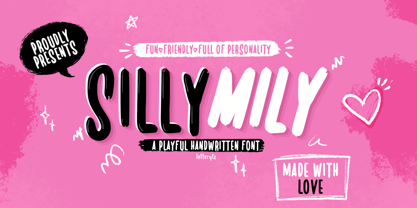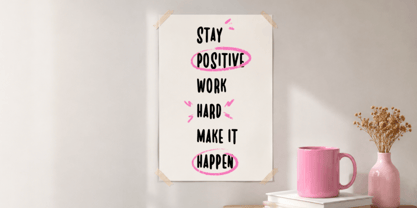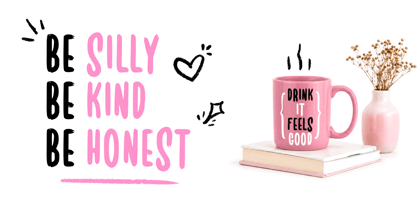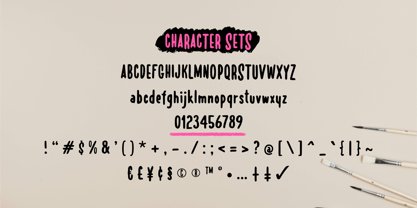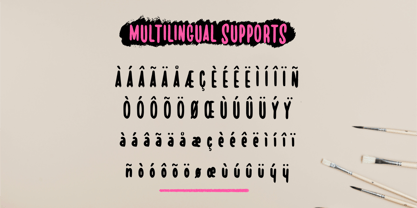
Sillymily
The Sillymily Font Family was designed by Wahyu Eka Prasetya, Dian Angga Marytama and published by Letterytz CalliType. Sillymily contains 2 styles and family package options. More about this family
Sillymily – Playful Handwritten Font
Sillymily is a fun and expressive handwritten font designed to bring joy, energy, and personality into your creative projects. Featuring bold organic strokes and a naturally playful rhythm, this font delivers a casual handmade feel that looks both friendly and eye-catching.
Carefully crafted with imperfect brush-like details, Sillymily captures the charm of authentic hand lettering while maintaining excellent readability. Its cheerful character makes it perfect for children-themed designs, playful branding, packaging, posters, quotes, social media graphics, greeting cards, and creative merchandise.
The slightly uneven shapes and quirky letterforms create a warm and approachable appearance, making your typography feel more personal and lively. While Sillymily has a rough handcrafted texture that can slightly lean toward a quirky or spooky aesthetic in certain themes, it is primarily best categorized as a playful handwritten font rather than a creepy font. However, its bold irregular strokes also make it adaptable for fun Halloween, comic, or whimsical designs.
Features:
✔ Handwritten playful display style
✔ Organic brush-inspired strokes
✔ Fun and bold character shapes
✔ Natural handmade appearance
✔ Easy to read and versatile
✔ Perfect for posters, branding, packaging, and social media
✔ Great for kids, playful, comic, and creative themes
✔ Includes Regular and Oblique styles
✔ Multilingual support
✔ Uppercase & lowercase characters
✔ Numbers, punctuation, and symbols included
Sillymily is the perfect choice for designers who want typography that feels fun, spontaneous, and full of personality.